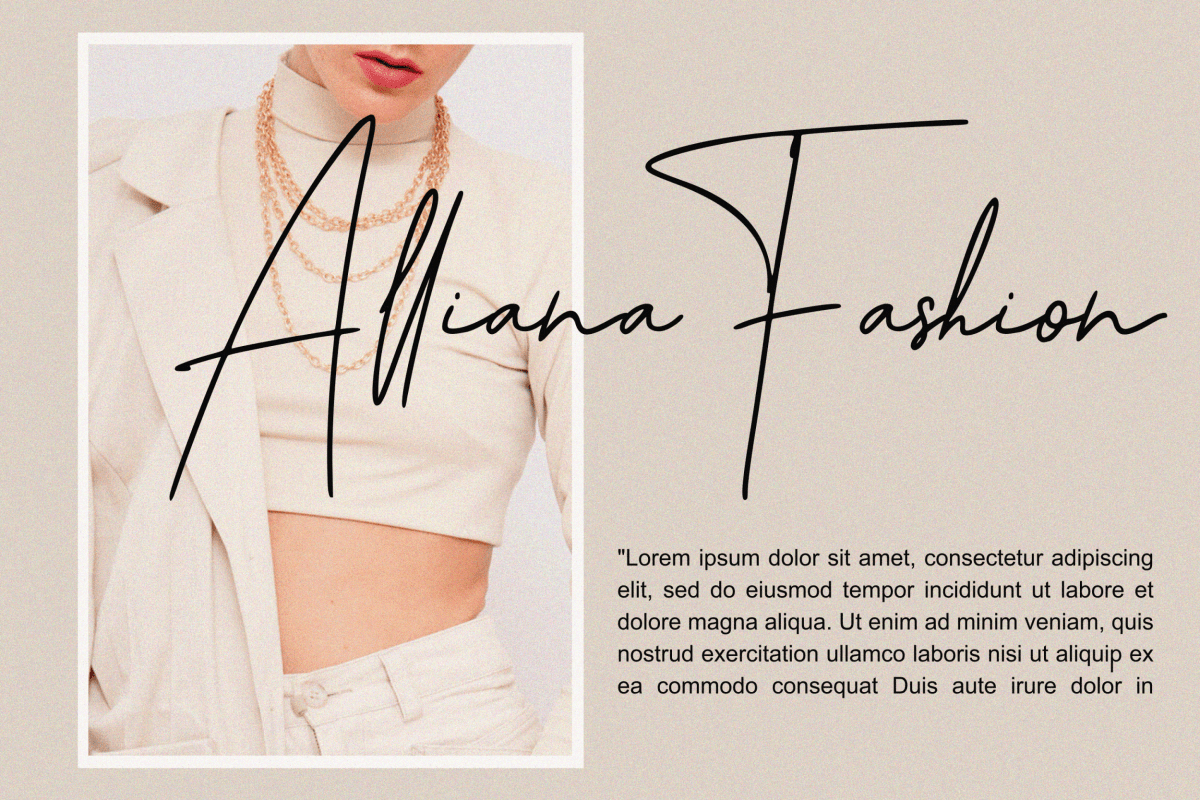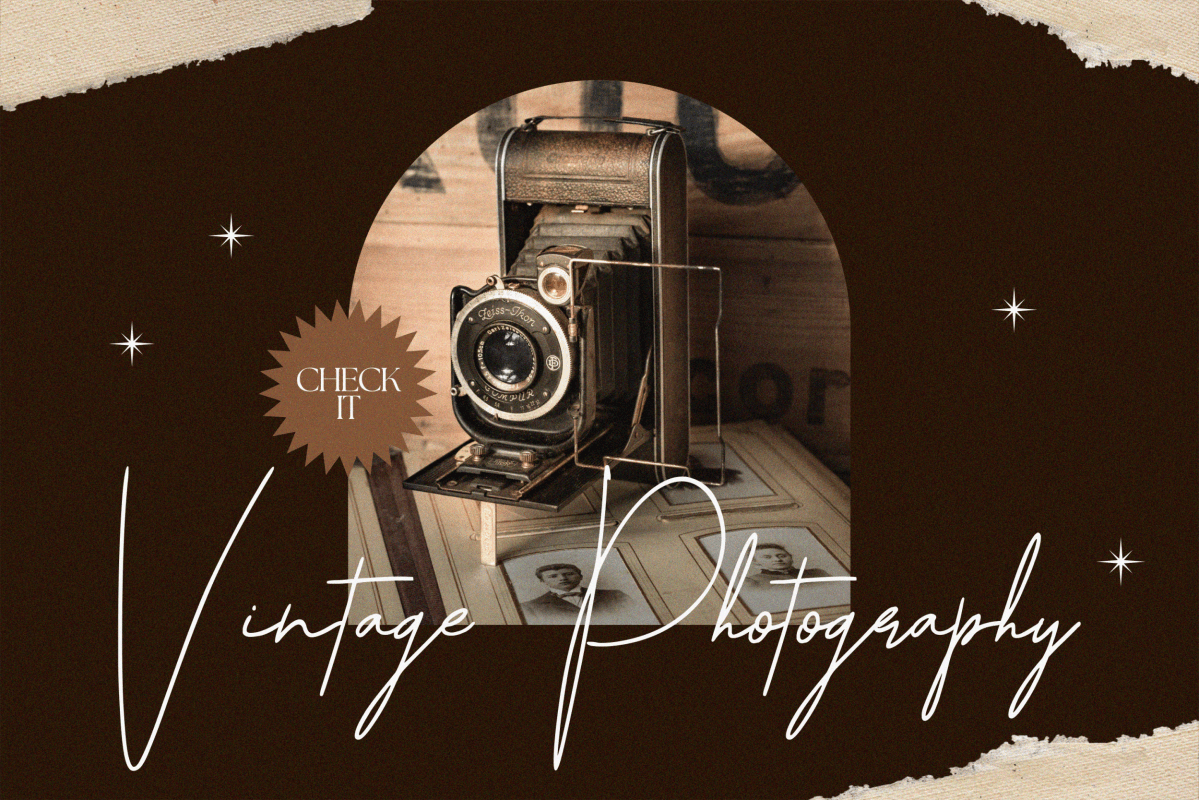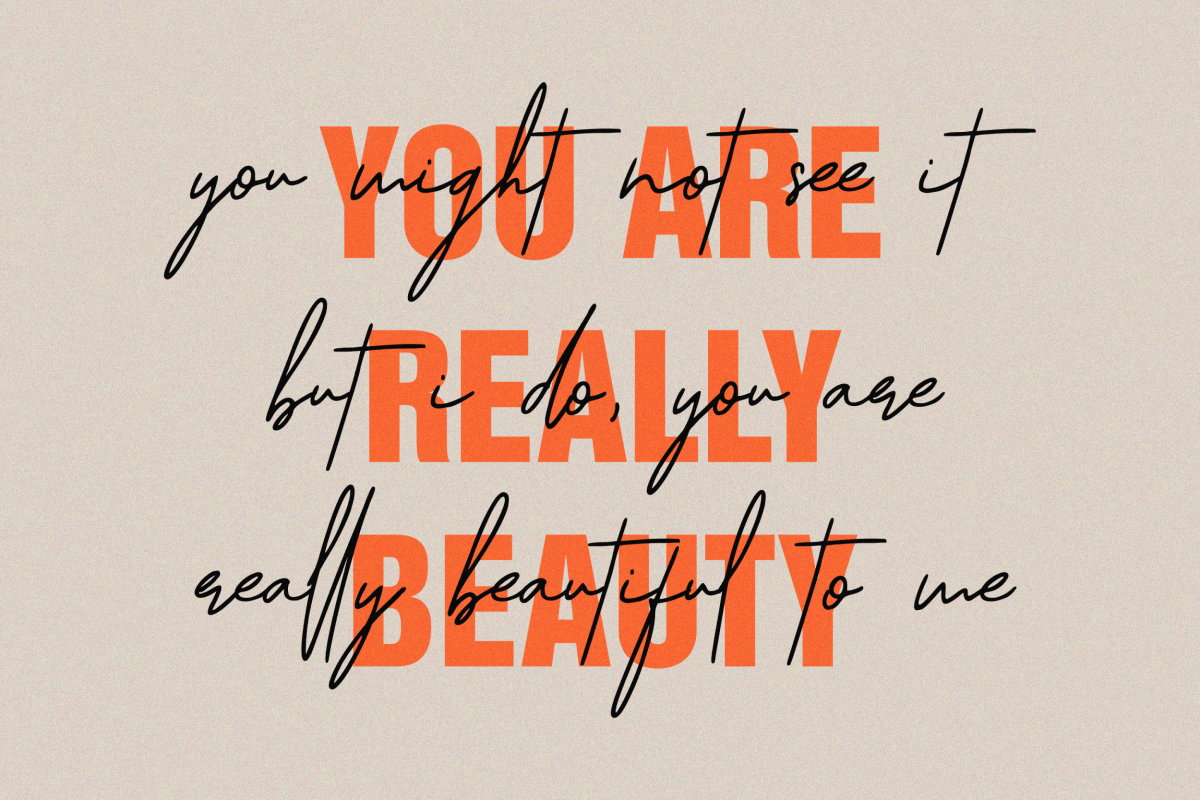
Signature Austine Font
Signature Austine Script Font
It’s a A Monoline Signature Font. Signature Austine is perfect for product packaging, branding project, megazine, social media, wedding, or just used to express words above the background.